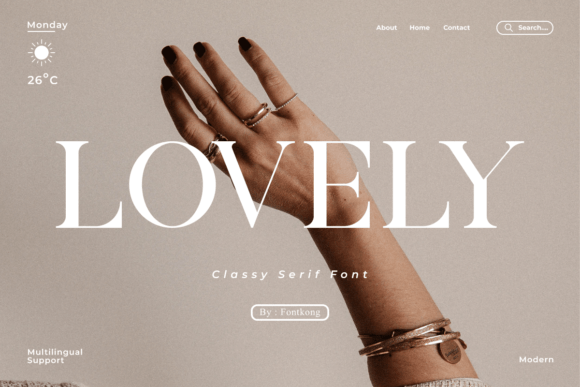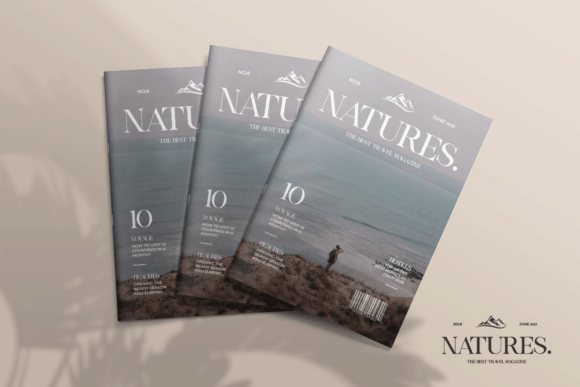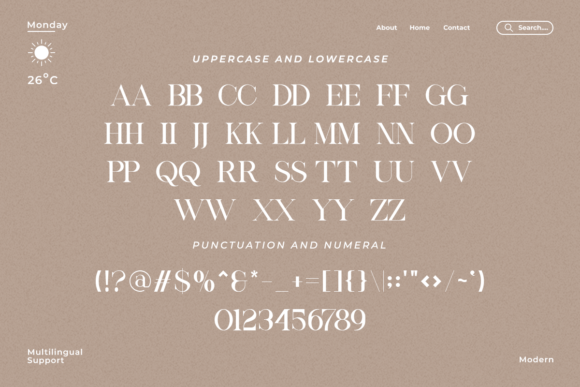
Lovely Font
About the Lovely Font
From logos to headlines, the Lovely Font is the perfect choice for making a lasting impression. Lovely is a charming and elegant typeface that combines sophistication with a touch of romance. Ideal for luxurious branding, beautiful wedding invitations, stylish logos, and refined editorial designs, this serif font enhances your projects with its graceful curves and timeless beauty. The Lovely font adds a sense of elegance and warmth to any design, making it perfect for those looking to create a polished and exquisite aesthetic. Whether used in print or digital formats, this font will leave a lasting impression with its delicate and stylish details.
Lovely Font Usage Examples